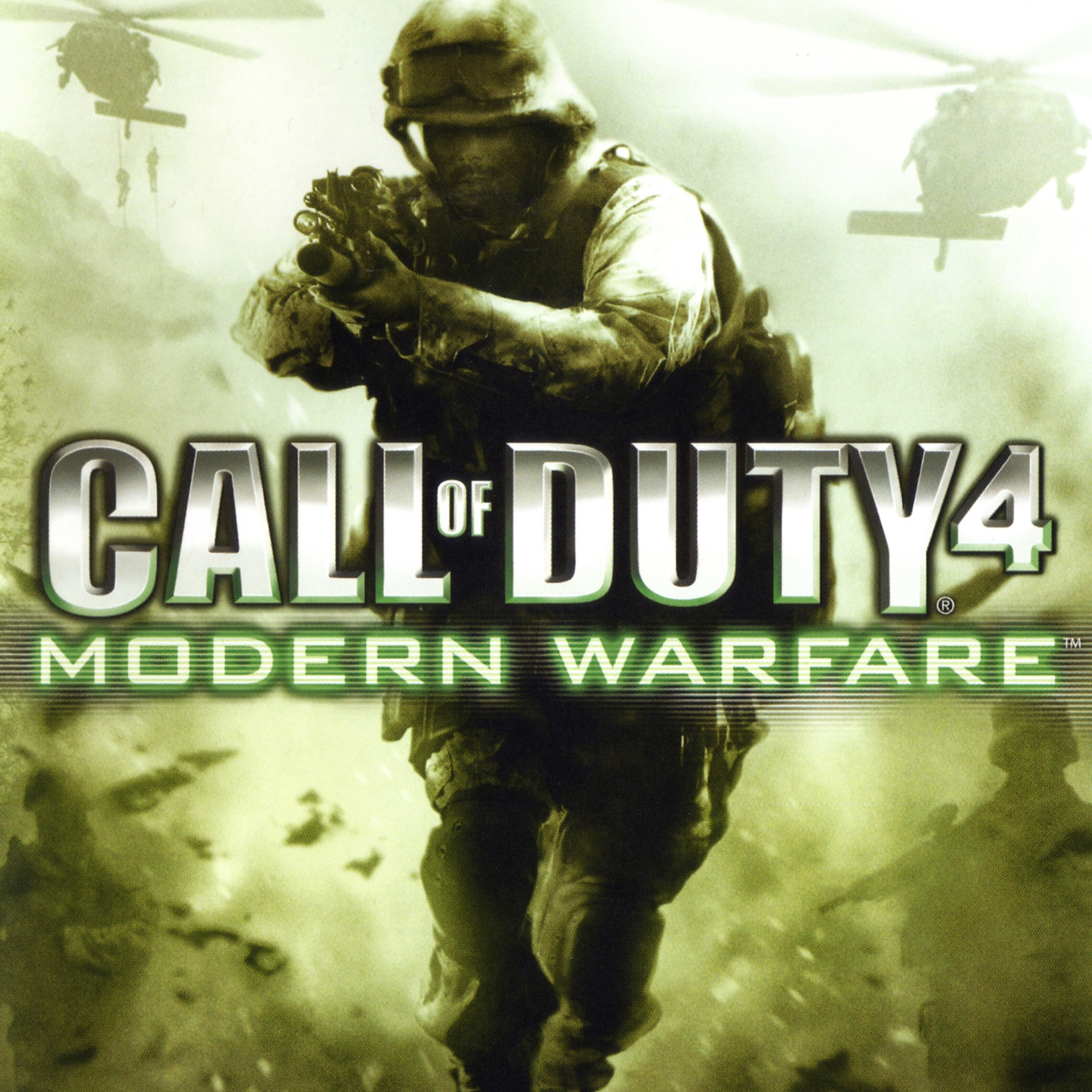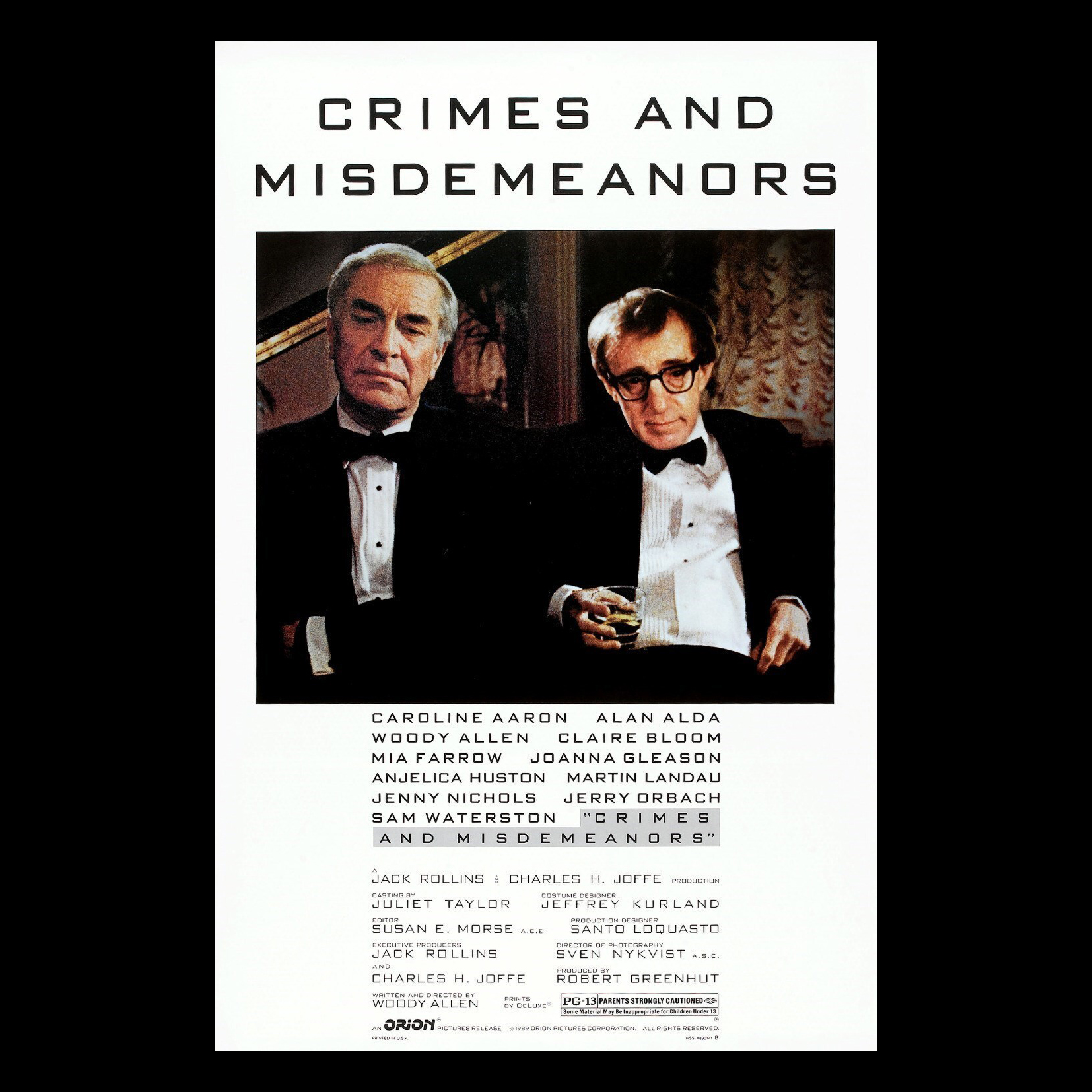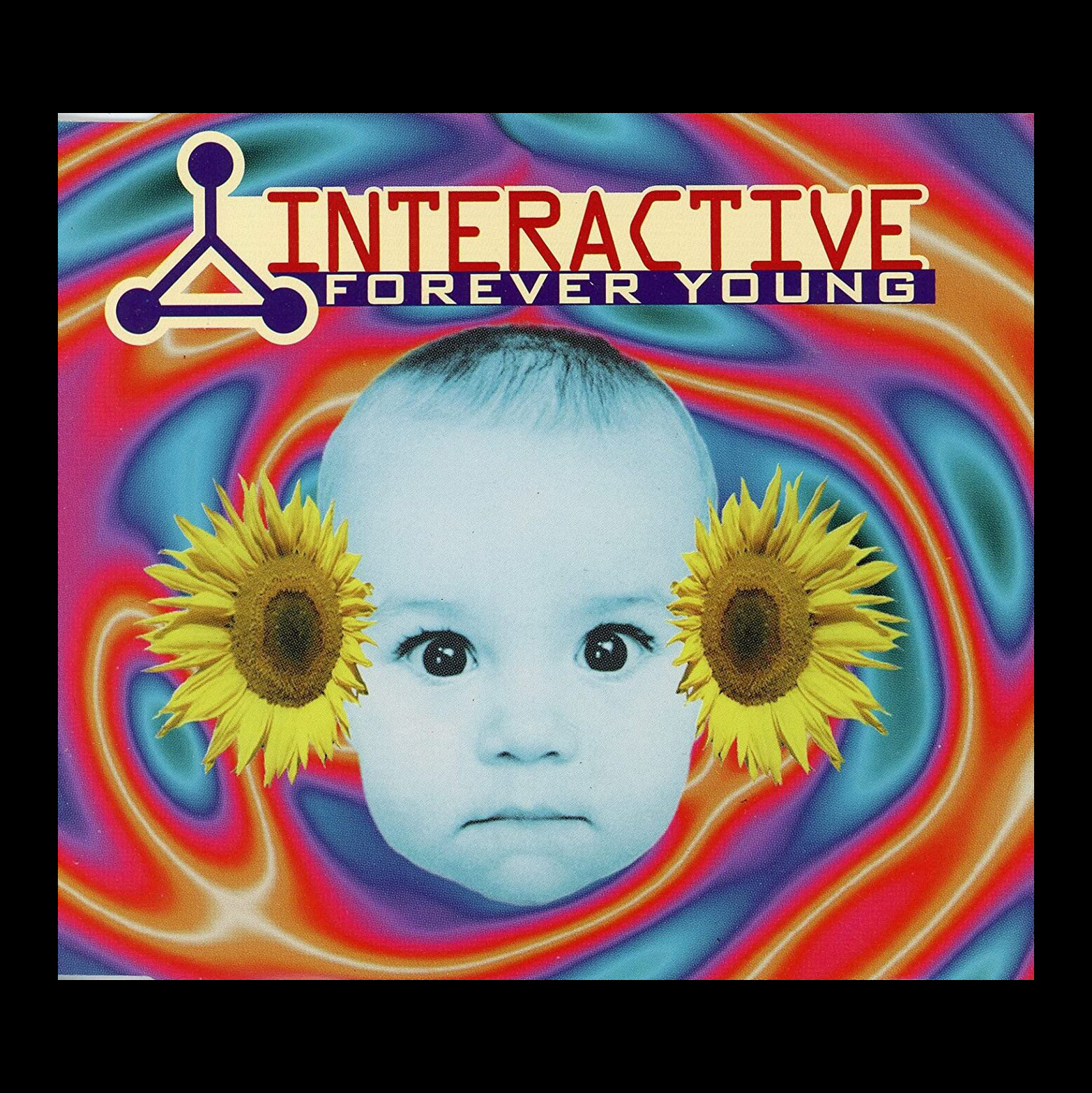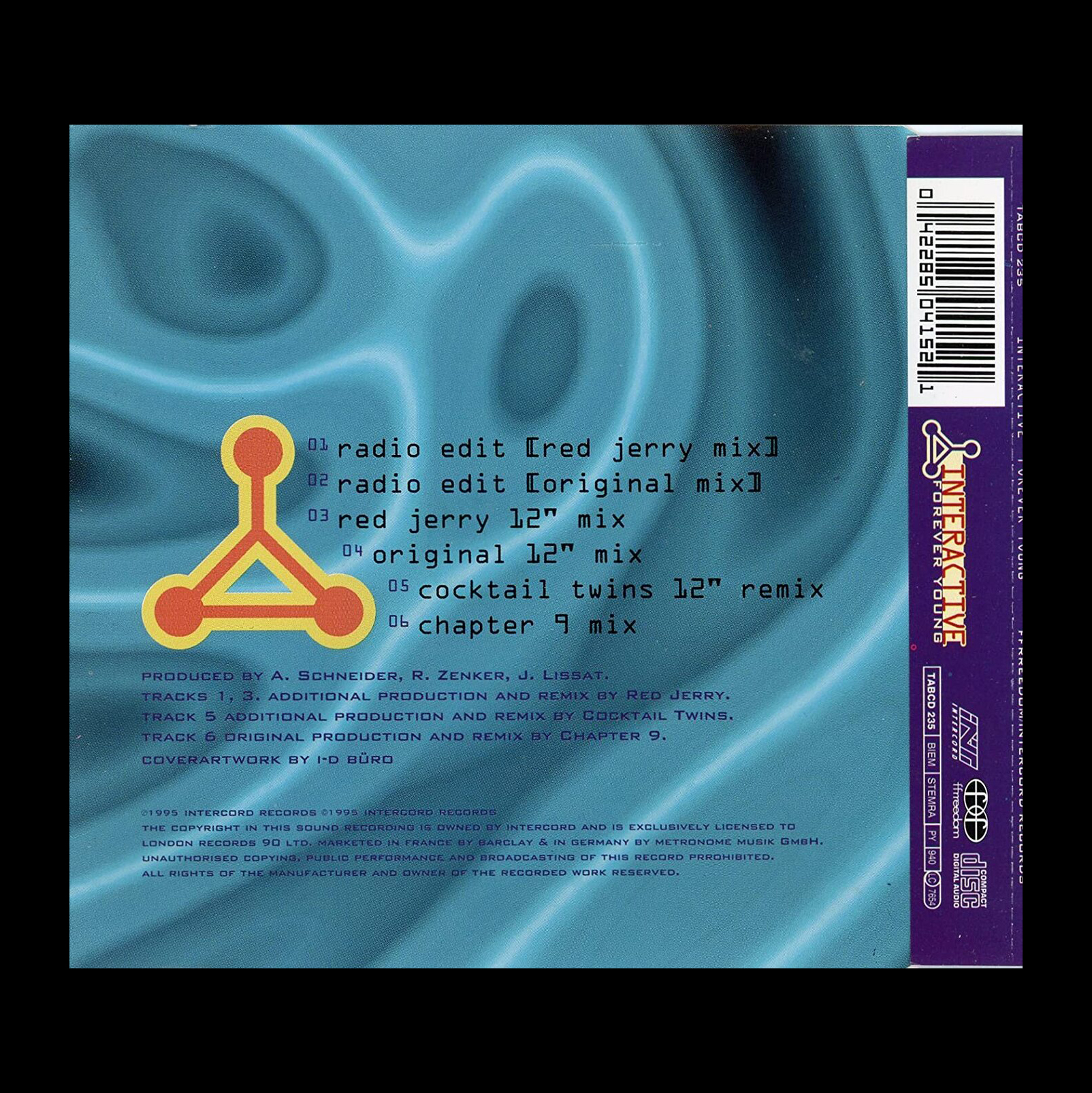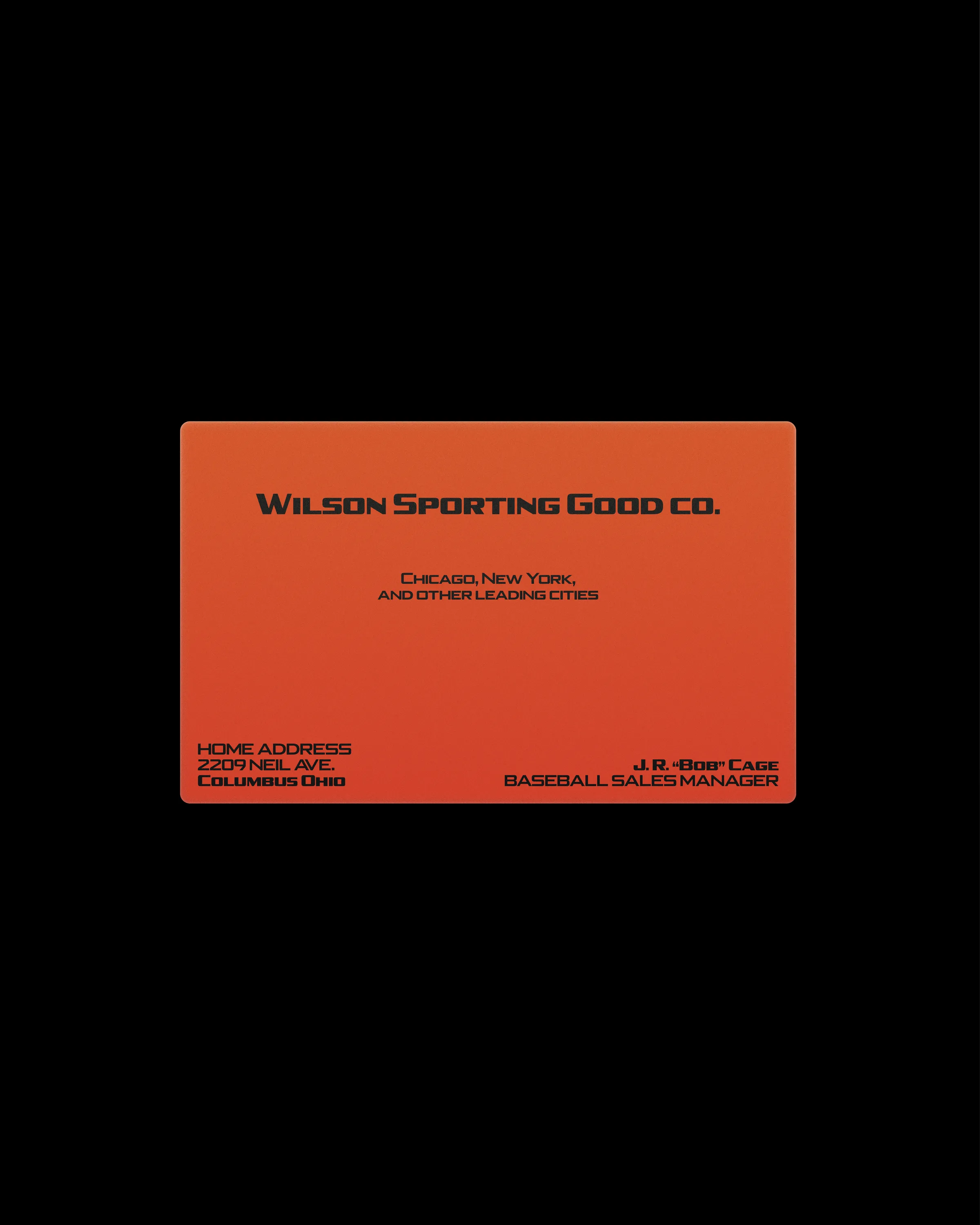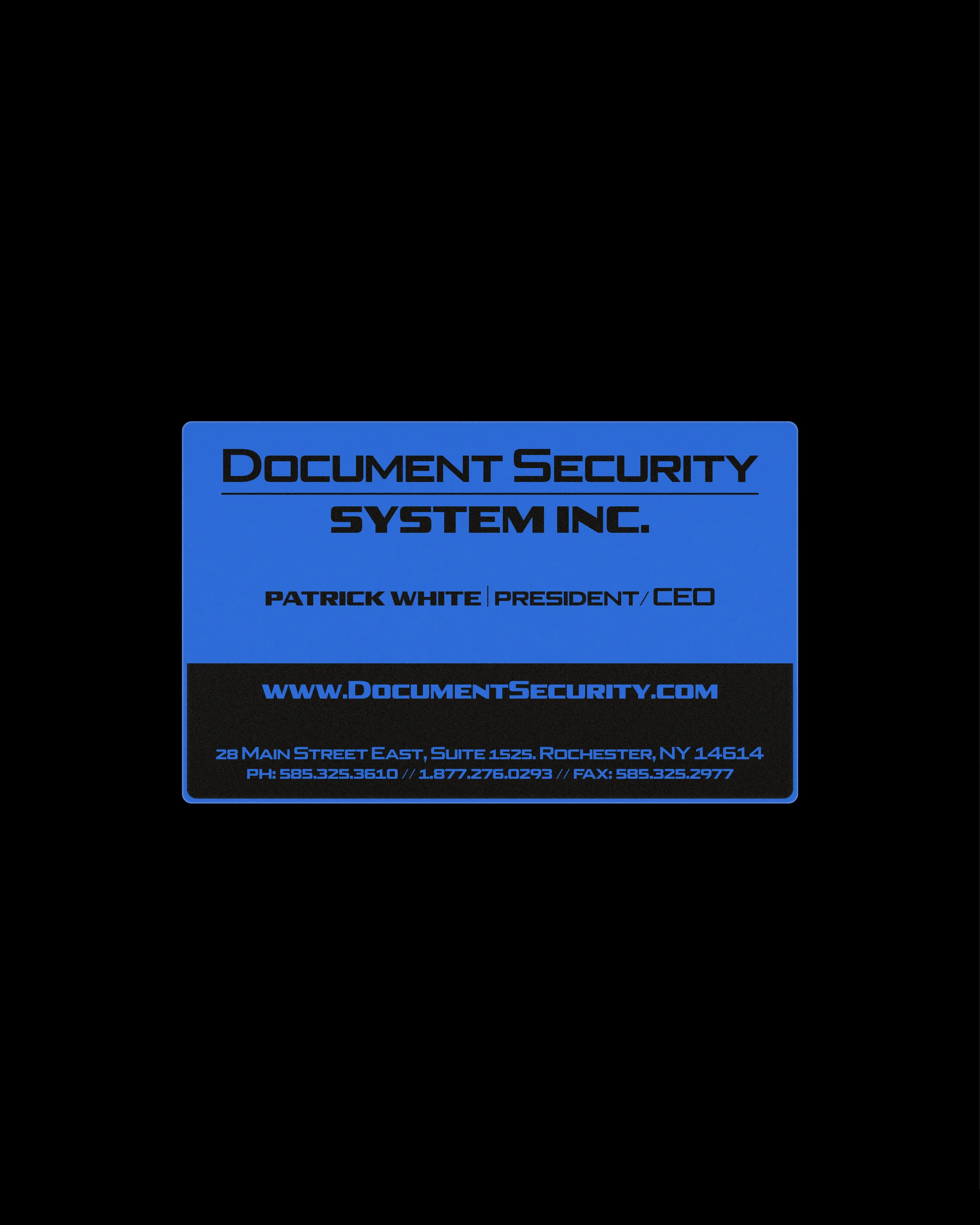
Stadium, Transport & Logistics, Warfare, Liberty City… you probably feel like you've already come across this figure, don't you? Dank pays homage to these brutal and rigid typographic shapes which constitute a prominent part of our visual environment since the last century. With a wide silhouette enhanced by angular curves and cleverly conserved irregularities resulting in its singular rhythm, this sans serif font draws inspiration from the infamous Bank Gothic (Morris Fuller Benton, American Type Founders, 1930). Unlike the latter —abusively associated with the fields of construction industry, sports or distopian sci-fi movies and video games— this first instalment of the Dank family intends to gently set new worlds for this particular font style while offering alternates styles (allowing to revive small slab serifs or not).